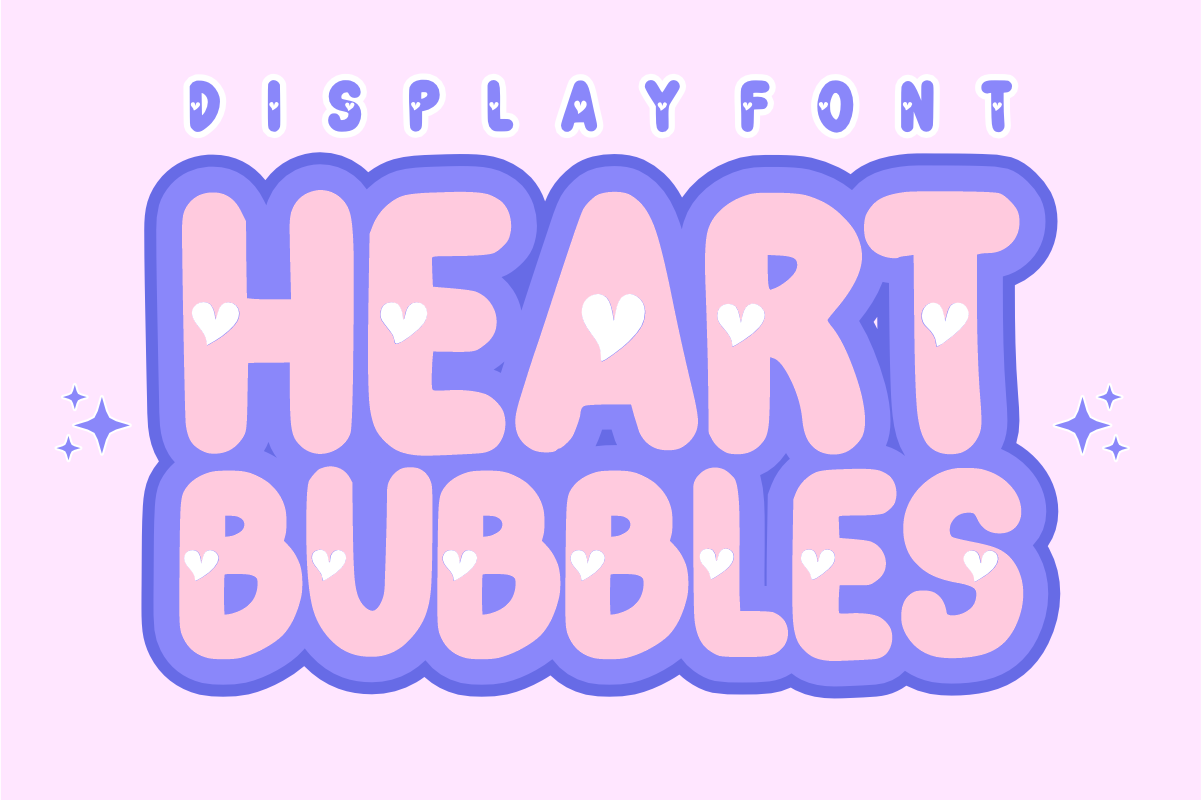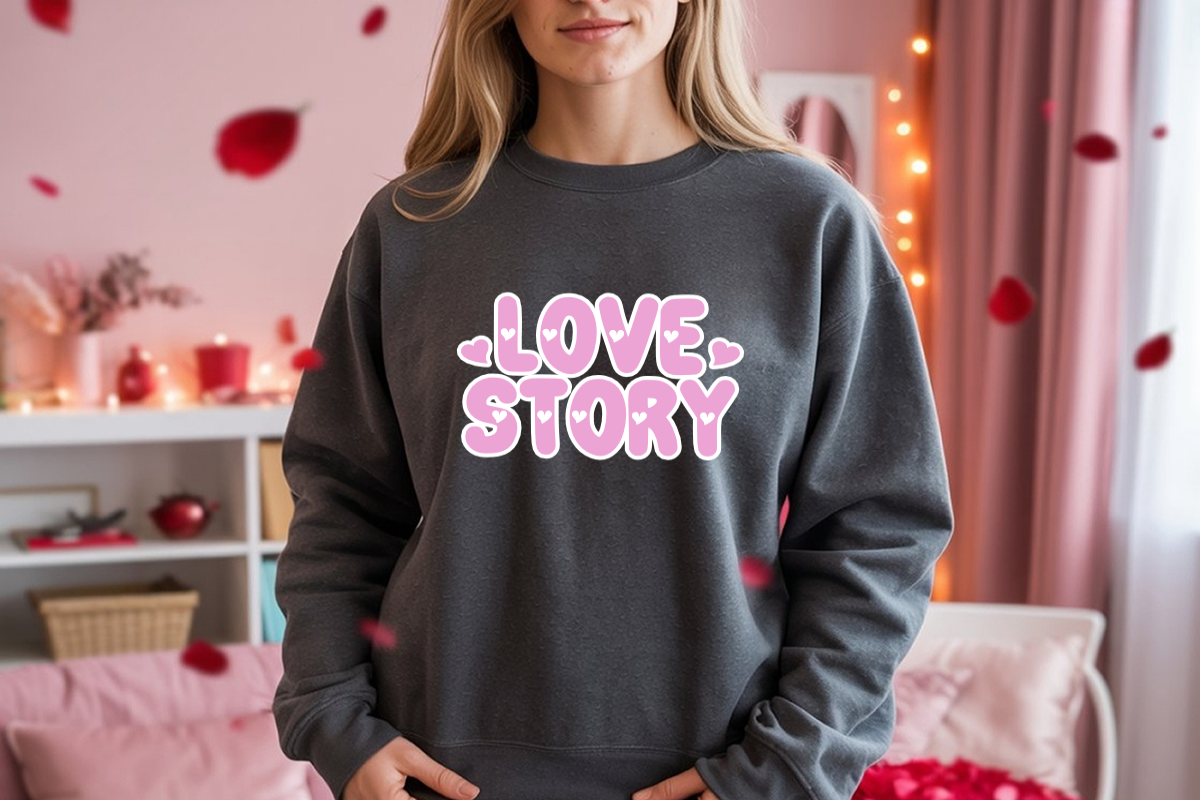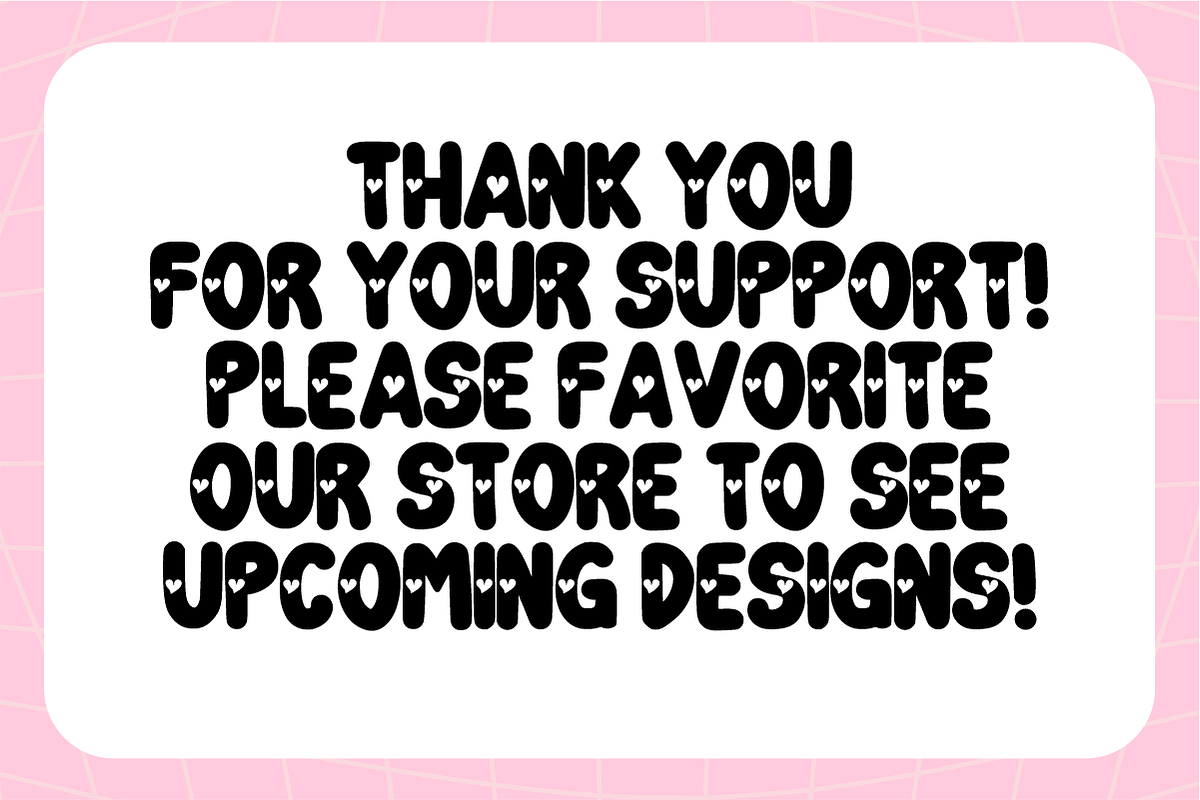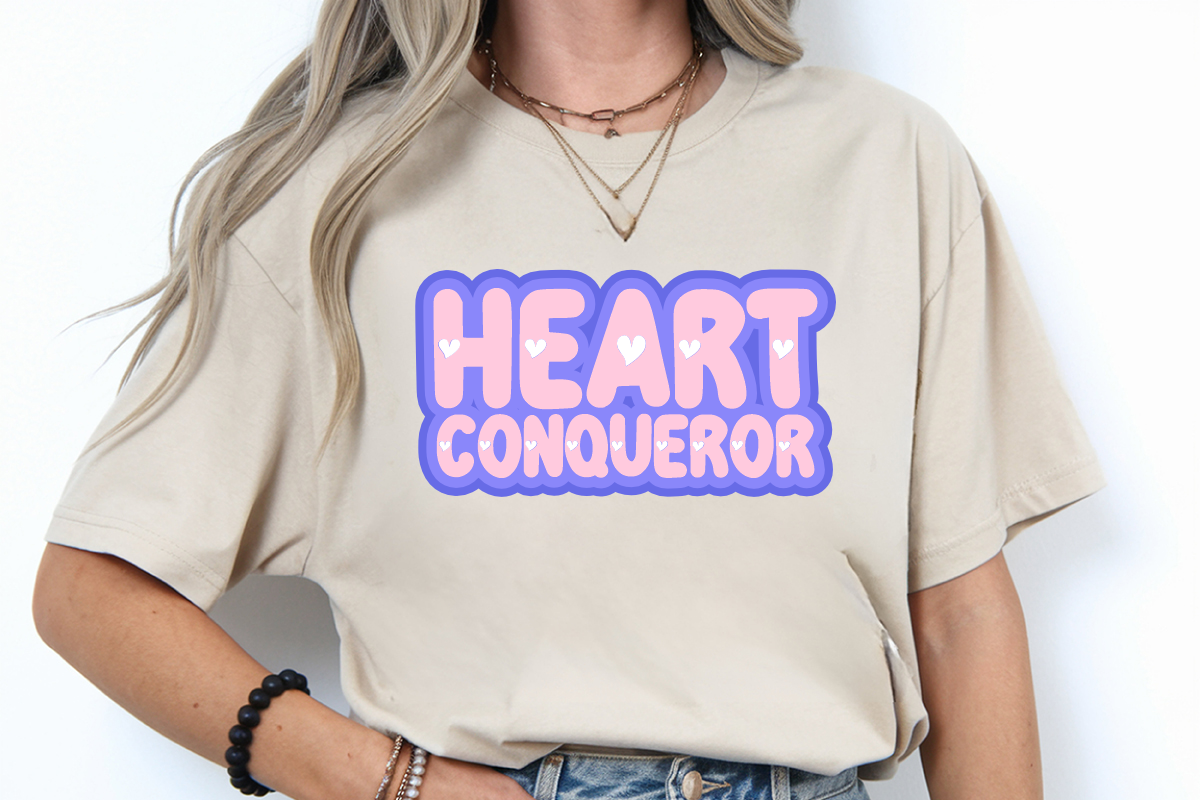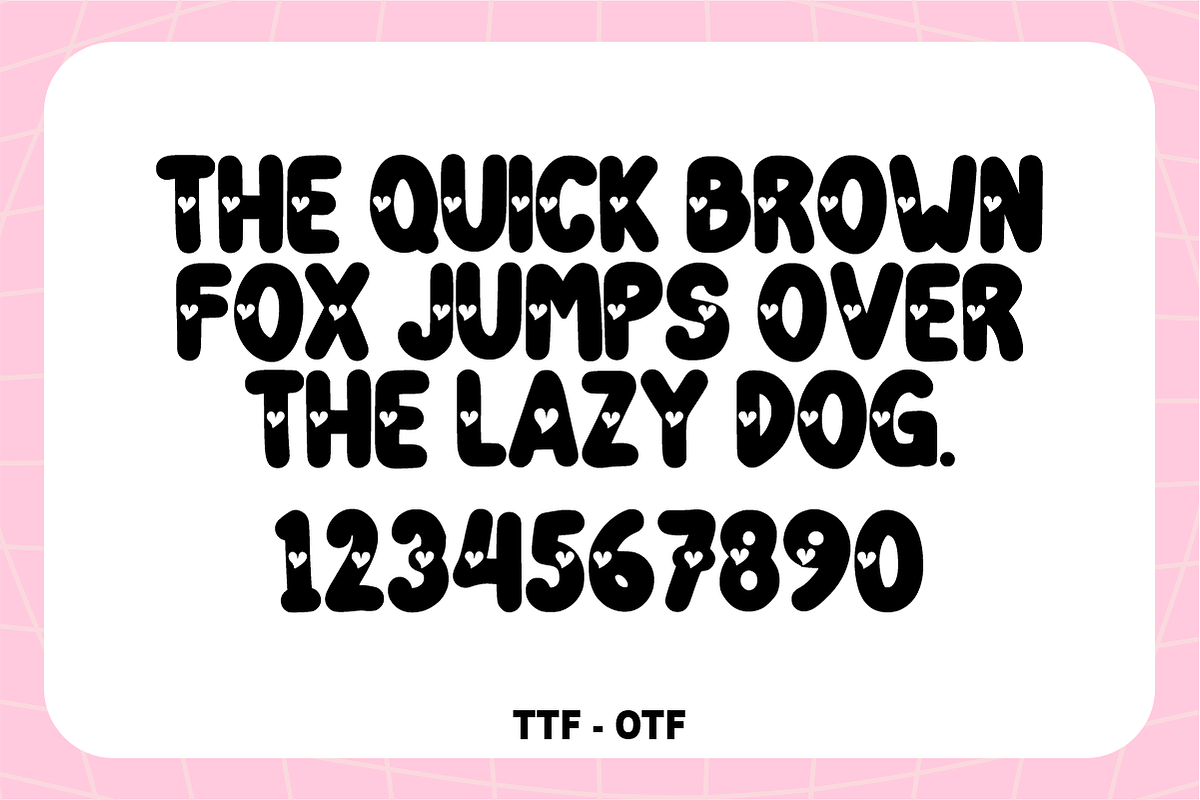
Heart Bubbles – Sweet & Playful font
Heart Bubbles – Sweet & Playful Bubbly Display Font ✨💖
Spread the love with every word!
Heart Bubbles is a delightful, chunky, and bubbly display font designed to bring a touch of sweetness to your creative projects. Each bold, rounded letter is adorned with charming heart accents, creating a unique "sticker-style" look that is both trendy and heartwarming. Whether you're designing for a special occasion or just want to add a playful vibe, this font is engineered to make your headlines pop with personality.
🌟 Why Heart Bubbles is a Must-Have:
Unique Heart Detailing: Features adorable heart cut-outs within the letterforms, making it instantly recognizable and perfect for romantic or kid-friendly themes.
Bold & High-Impact: Its thick, bubbly silhouette ensures excellent legibility while commanding attention in any design layout.
Effortless Style: Captures the popular "modern retro" and "cute aesthetic" currently trending across global creative platforms.
🎨 Perfect For:
💖 Valentine’s Day & Weddings: Romantic greeting cards, wedding stationery, and "save the date" announcements.
🎂 Kids' Celebrations: Birthday party invitations, cake toppers, nursery wall art, and milestone posters.
👕 Merchandise & Apparel: Trendy t-shirts, hoodies, tote bags, and custom vinyl stickers (Cricut/Silhouette friendly).
📱 Social Media & Branding: Sweet Instagram quotes, playful logos for boutiques or bakeries, and eye-catching YouTube thumbnails.
🎁 Packaging: Charming labels for handmade gifts, beauty products, or artisanal sweets.